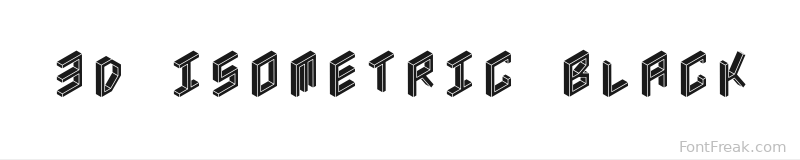
3D Isometric Black
About 3D Isometric Black
The 3D Isometric Black font by GGBot is a striking example of display typography, designed to captivate and engage. With its bold, geometric forms, this font boasts a unique isometric style that creates a three-dimensional effect, making it stand out in a variety of design applications. The stroke weight is consistent and robust, providing a strong visual presence while maintaining clarity. The contrast is subtle yet effective, enhancing the dimensionality without overwhelming the viewer. The spacing is thoughtfully crafted, ensuring that each character maintains its individuality while contributing to the overall cohesiveness of the text.
This font is particularly well-suited for applications that require a bold statement. It can be effectively used in movie posters, where its dramatic flair can draw attention and convey a sense of action or adventure. Additionally, it's ideal for video game graphics, where its modern aesthetic aligns perfectly with the digital landscape. Graphic designers can also leverage this font for branding projects, especially for companies aiming for a contemporary and edgy look. Restaurant menus could benefit from its unique style, offering a memorable impression to patrons. Content creators looking to add a distinctive touch to their presentations or social media graphics will find this font to be an excellent choice.
Targeting graphic designers, small business owners, and content creators, the 3D Isometric Black font free download is a valuable resource for anyone seeking to elevate their visual communications. Its bold design and versatility make it a standout choice for a range of projects. The combination of its unique isometric style and strong visual impact ensures that any work featuring this font will capture attention and leave a lasting impression.